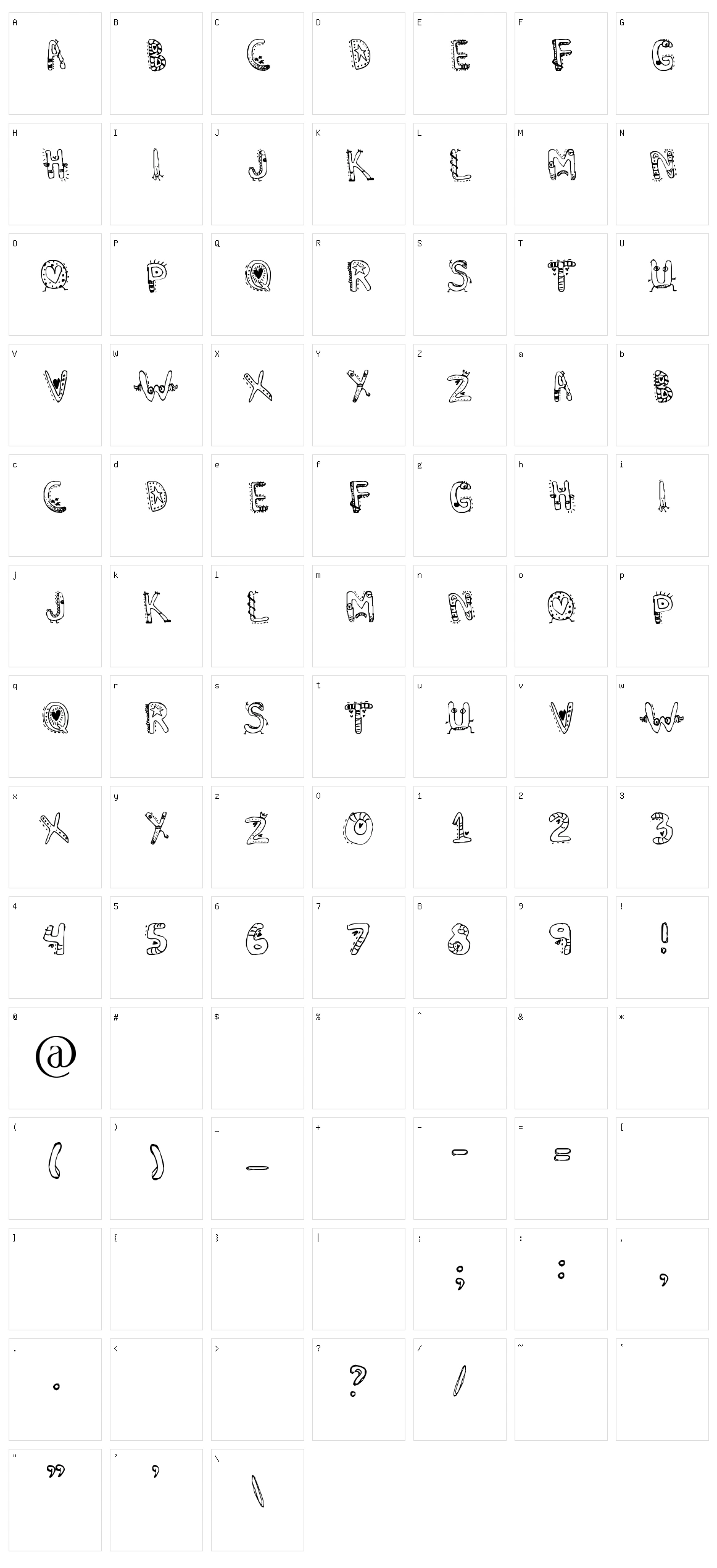
The free font Denne's Aliens is carefully designed by Denne, showcasing a thoughtful balance of creativity and usability and falls under the Cartoon font style. When you download the ZIP file, it contains only 325.04 KB of font files, making it lightweight and quick to download. Please review the license details below to understand permitted usage and distribution rights. If license information is not available, we recommend using this font for personal projects only or contacting the author directly for commercial usage permissions.